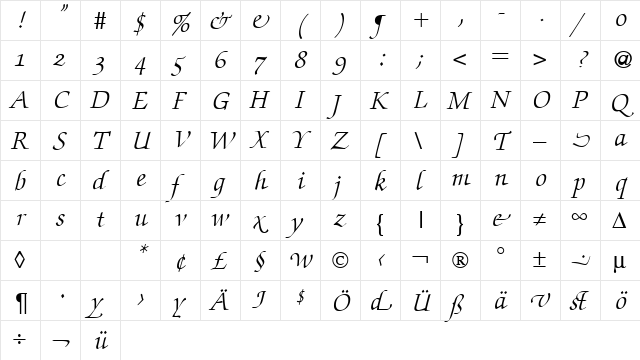
ZabriskieScriptSwash RegularItalic
ZabriskieScriptSwash brings a calligraphic fluidity to the page — its connecting strokes and expressive curves give it an unmistakably human quality.
Font Pairing: Combine ZabriskieScriptSwash with a simple geometric sans for maximum contrast — the tension between flowing curves and clean structure is a classic typographic pairing.
Pro Tip: Pair ZabriskieScriptSwash with a clean sans-serif for supporting text. The contrast between fluid script and geometric structure creates an elegant typographic hierarchy.